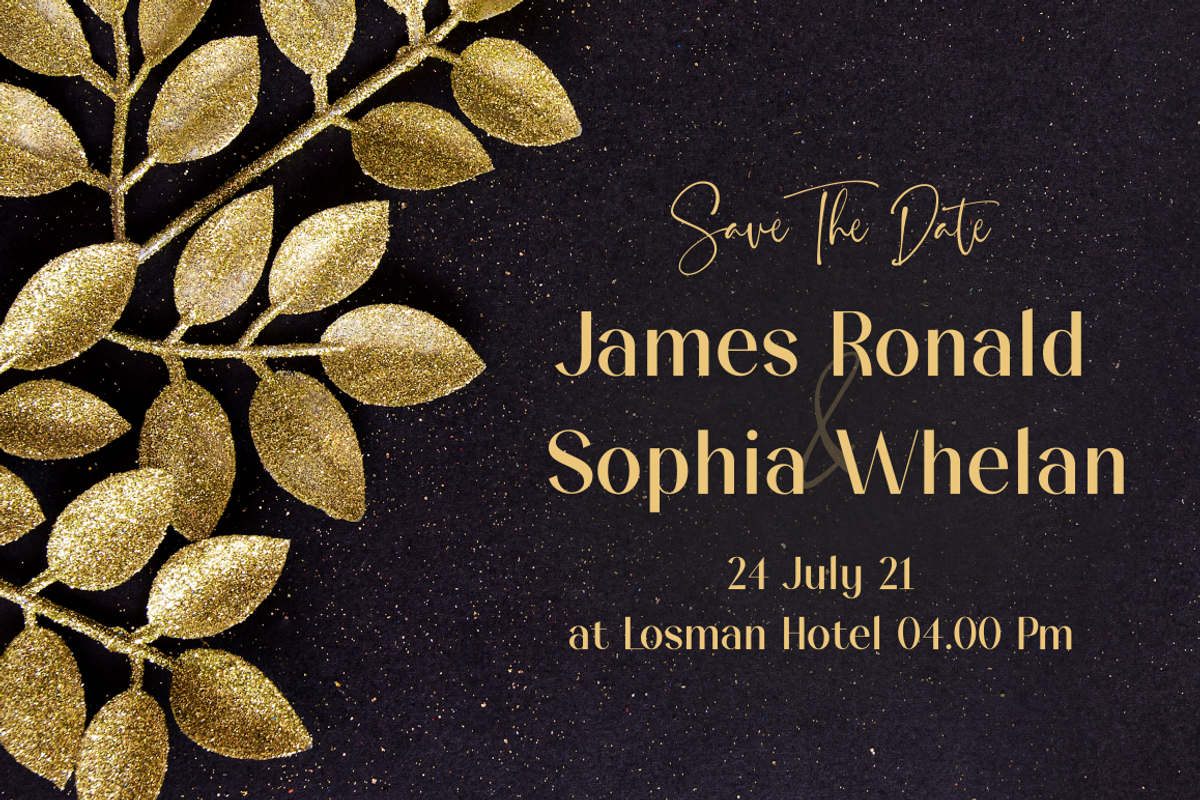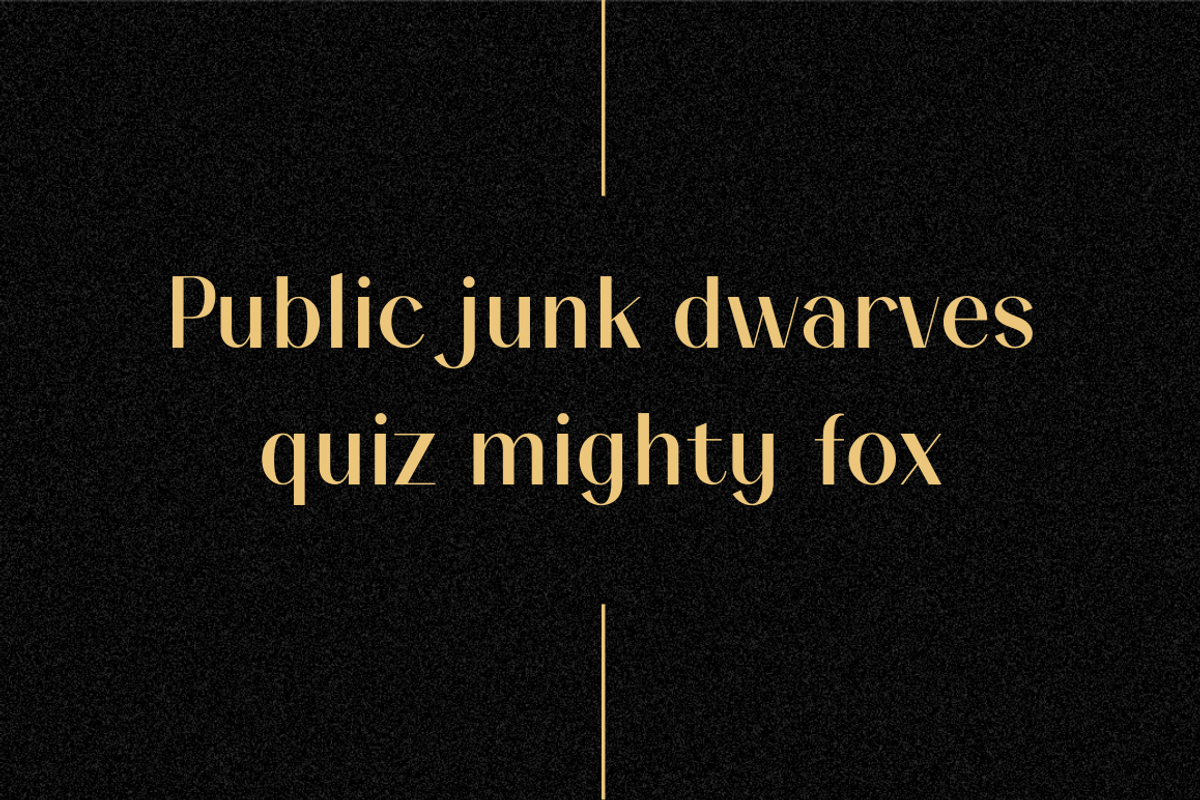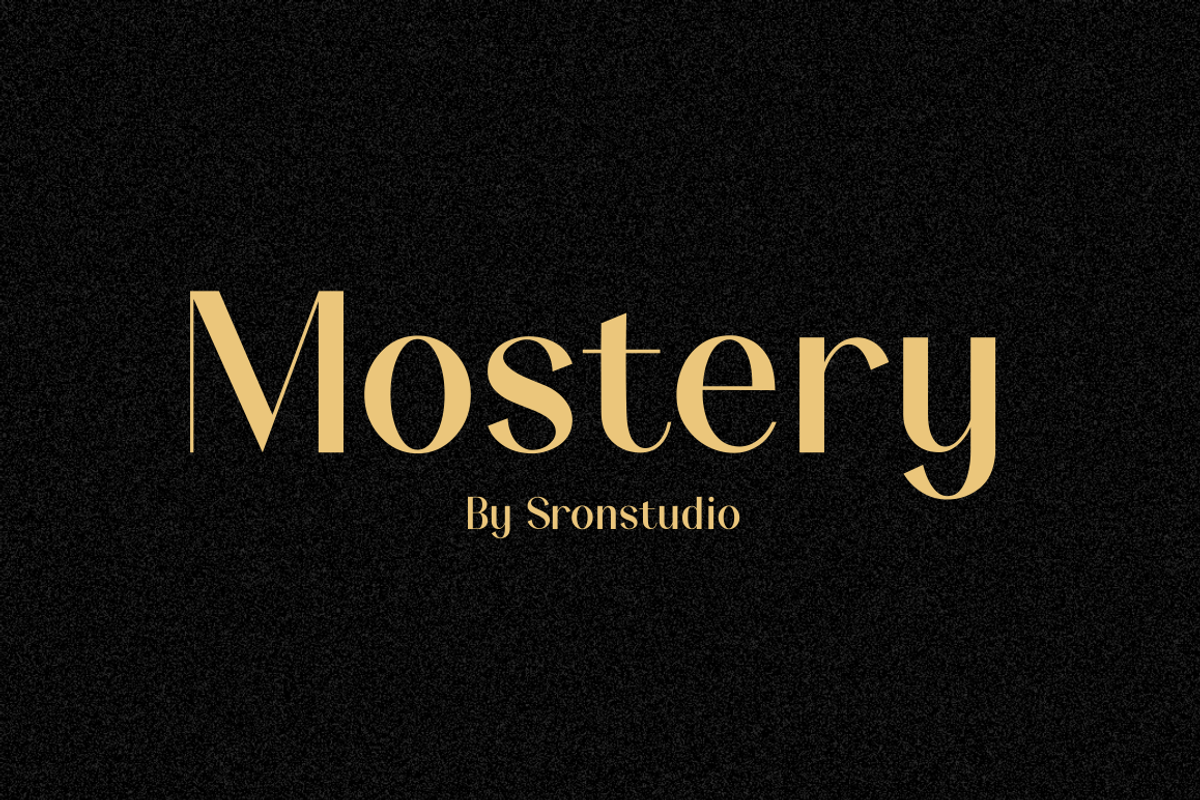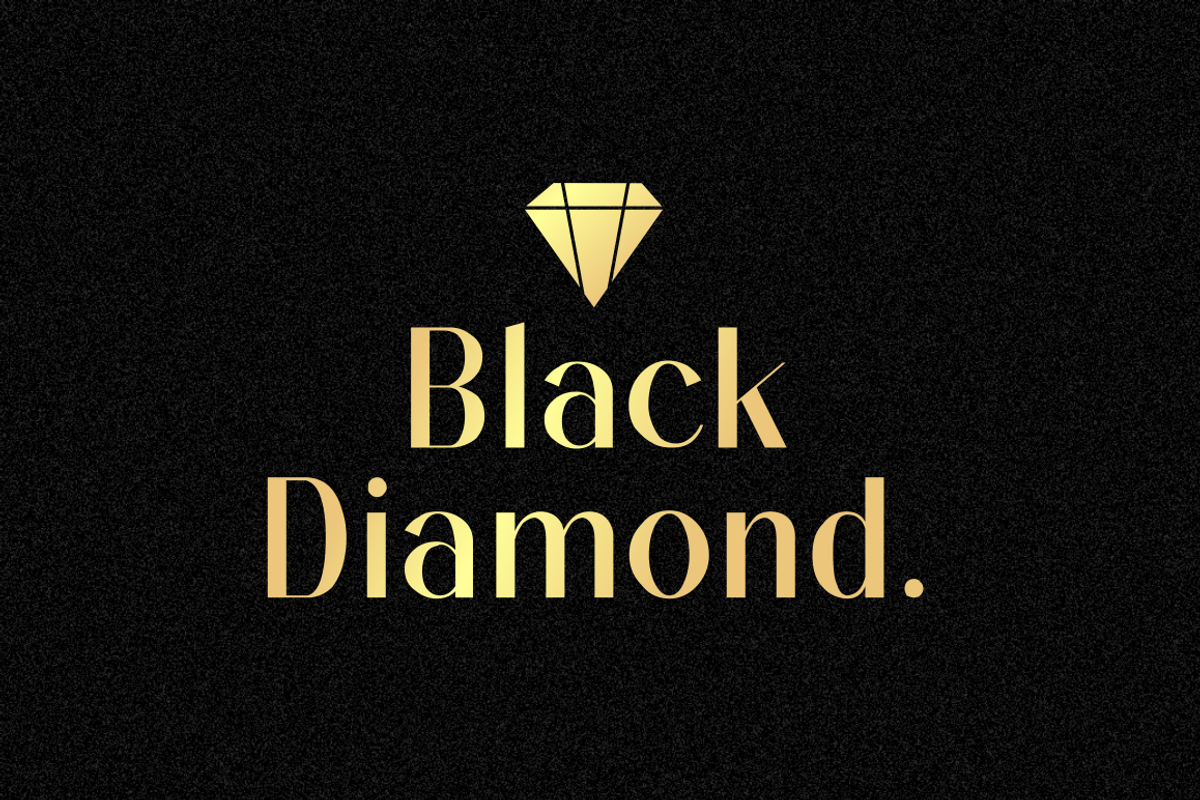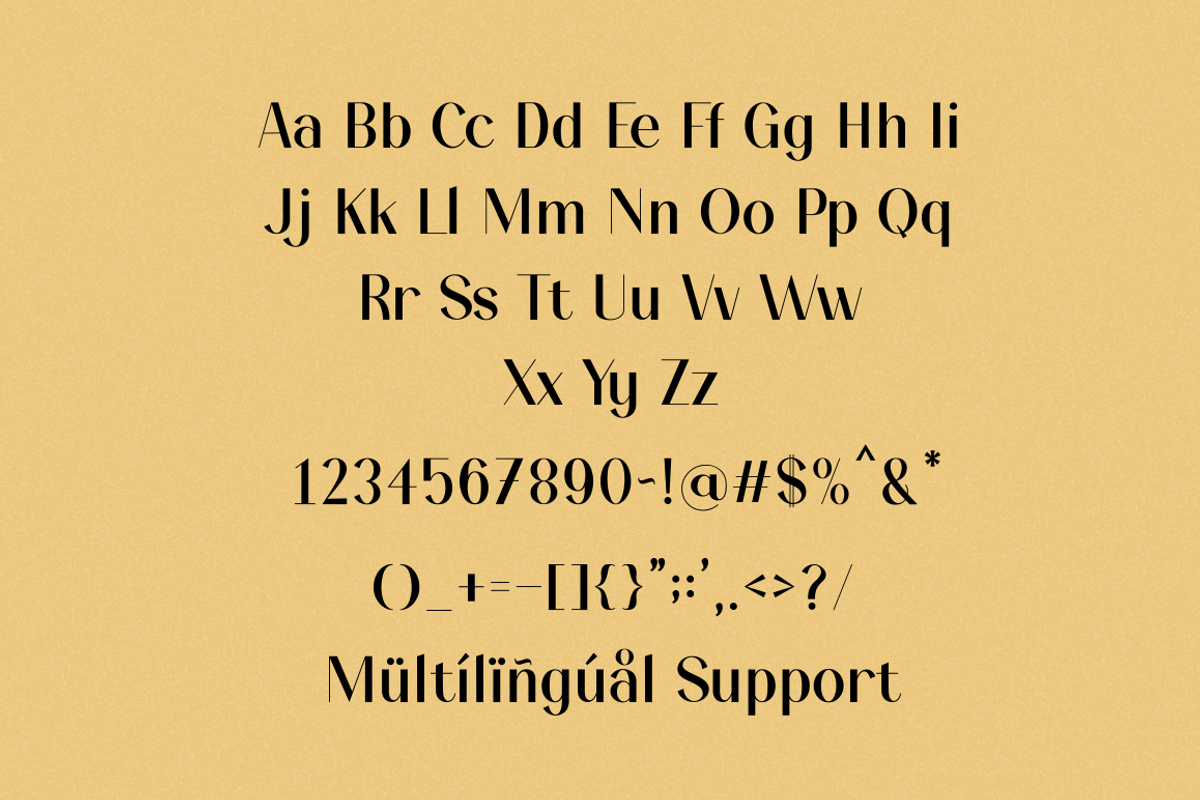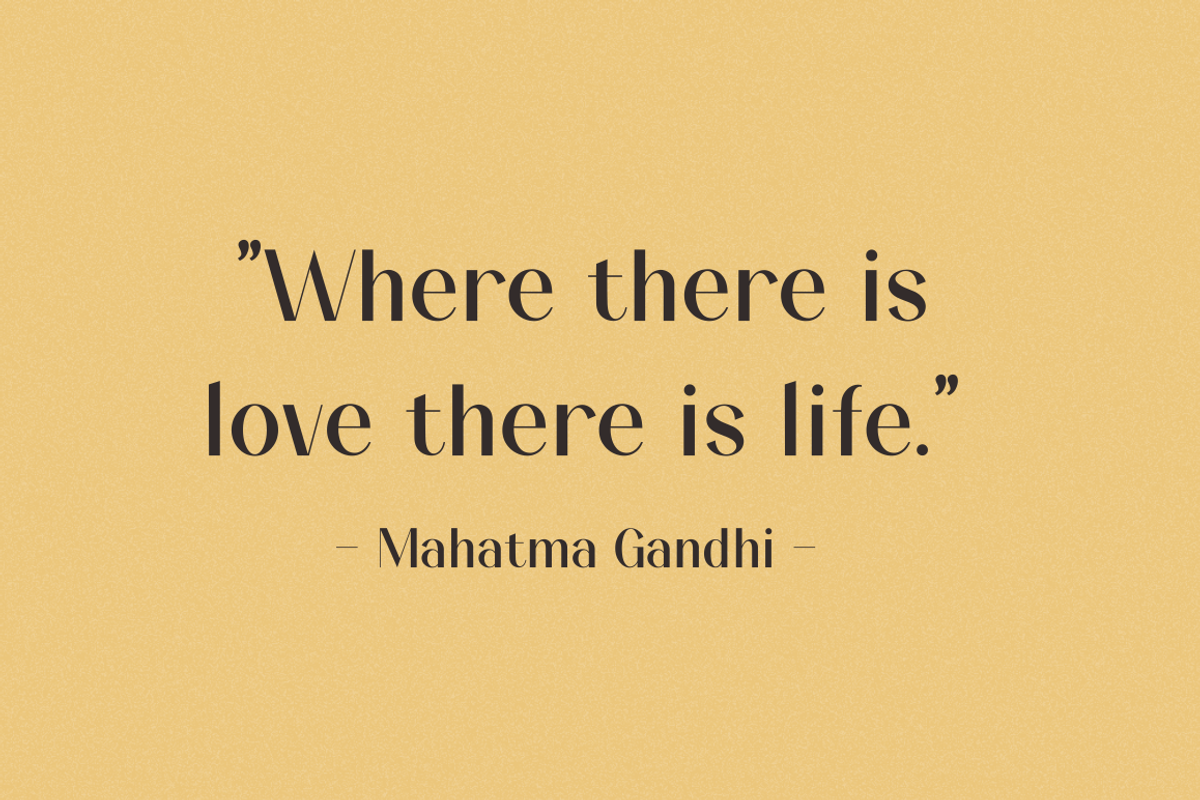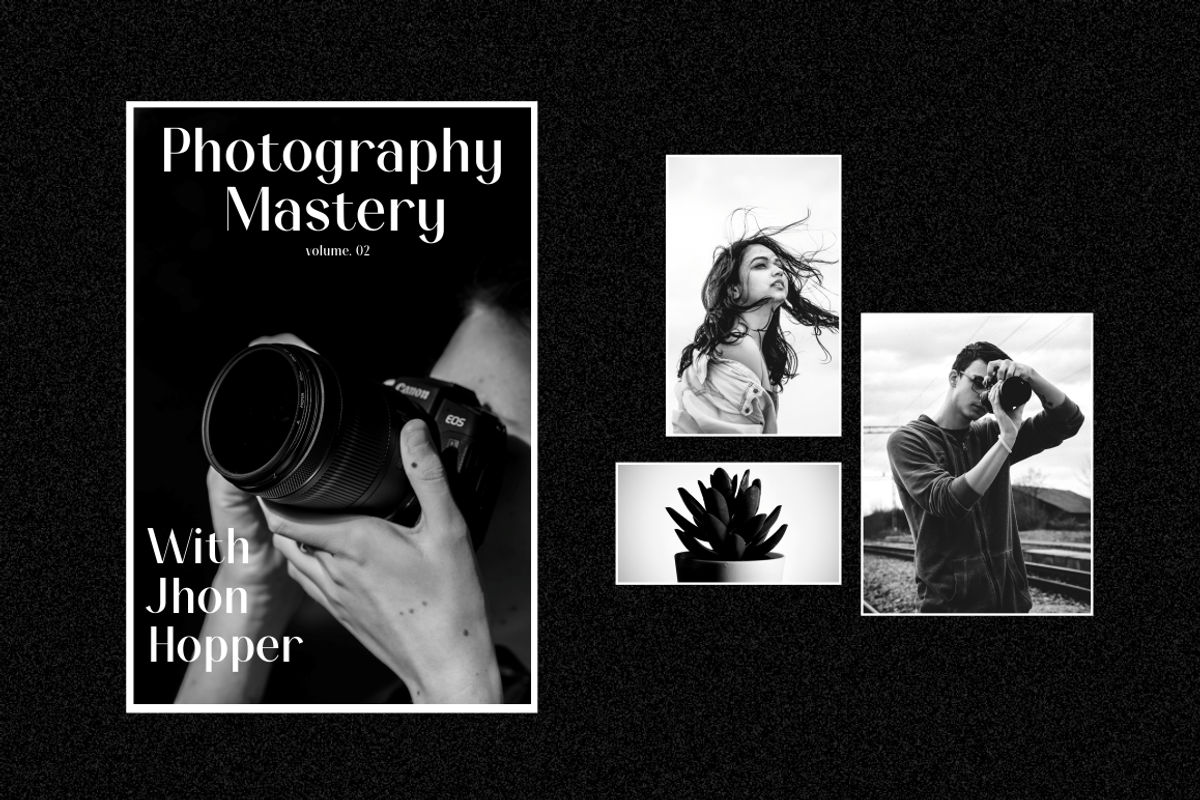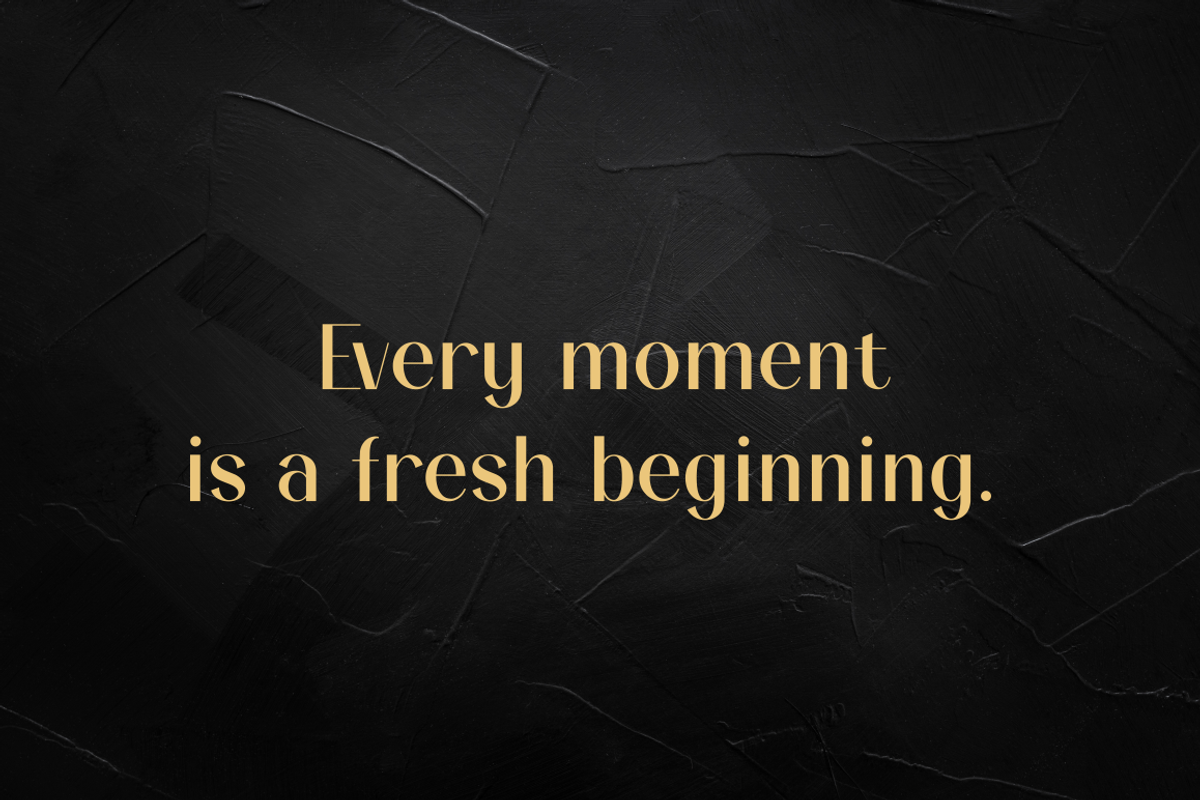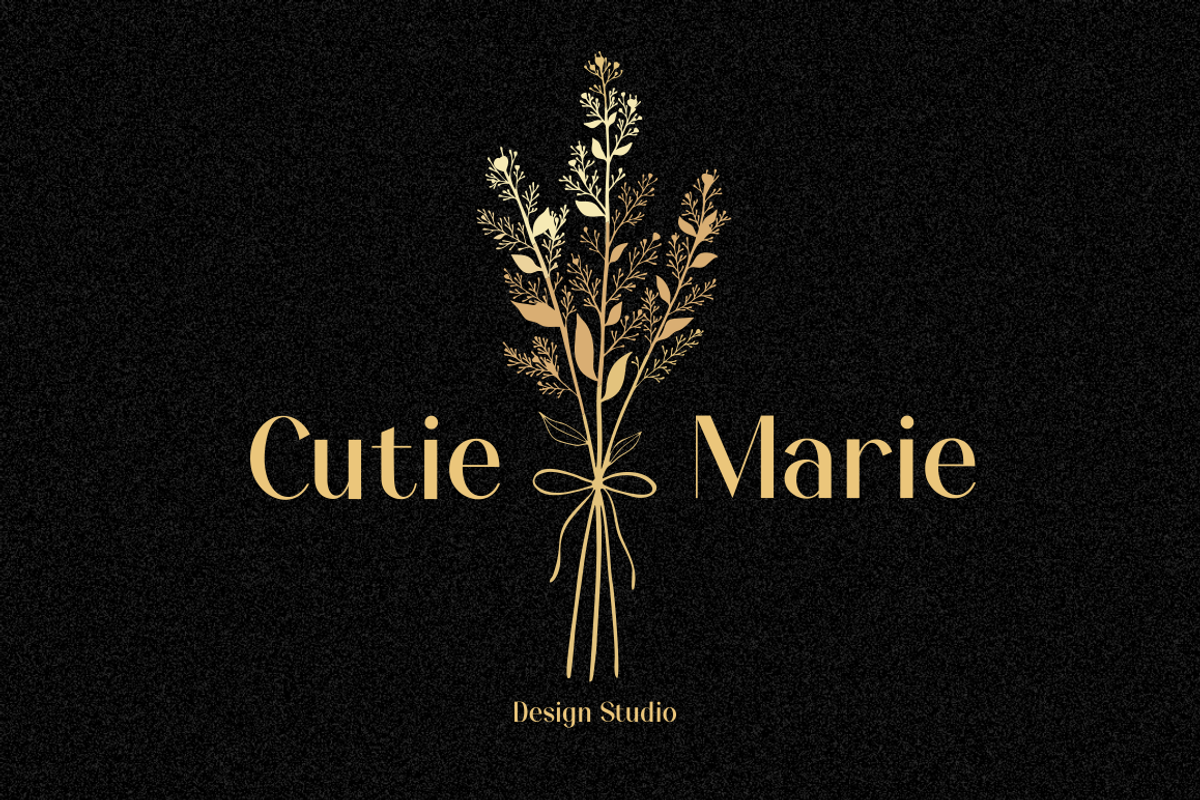
Mostery - Modern Sans Serif Font
Mostery – Modern Sans Serif Font, this font perfect for branding, invitation, stationery, wedding designs, social media posts, advertisements, product packaging, product designs, label, photography, watermark, special events, and more.
- Uppercase and lowercase letters
- Multilingual symbols, numerals, and punctuation